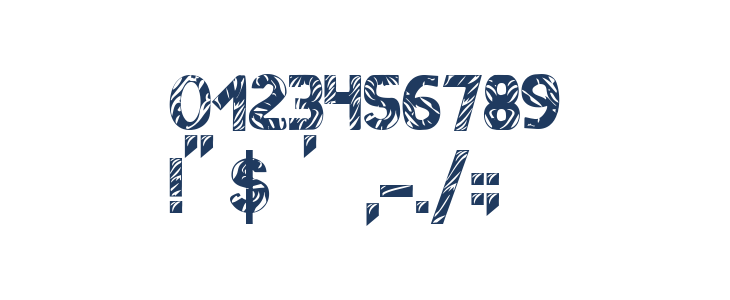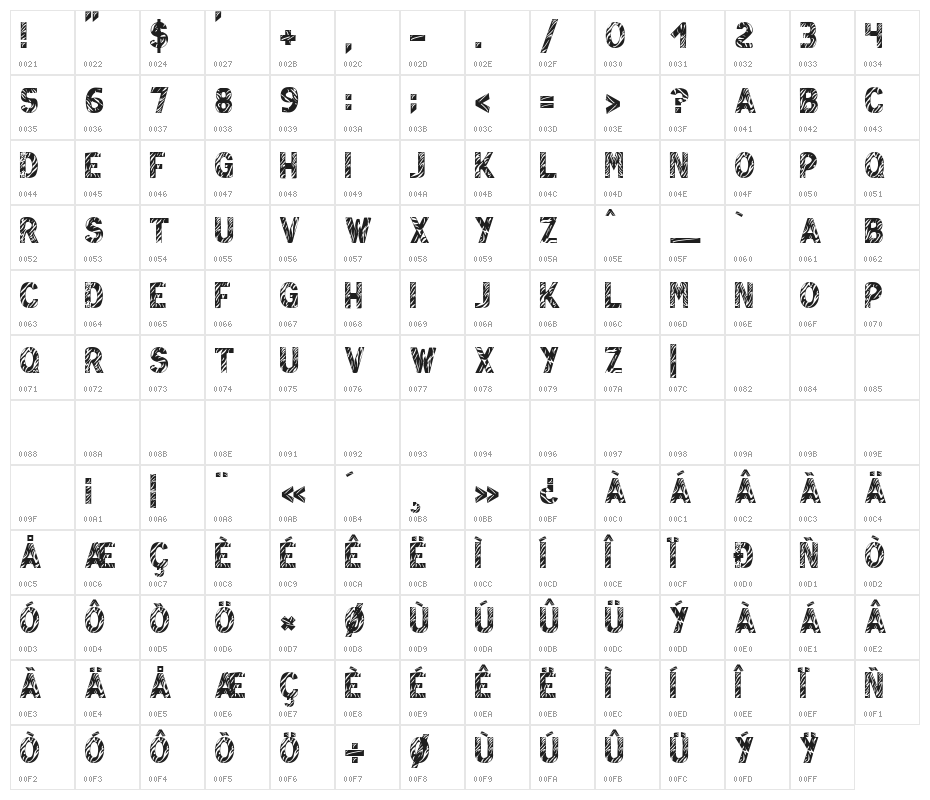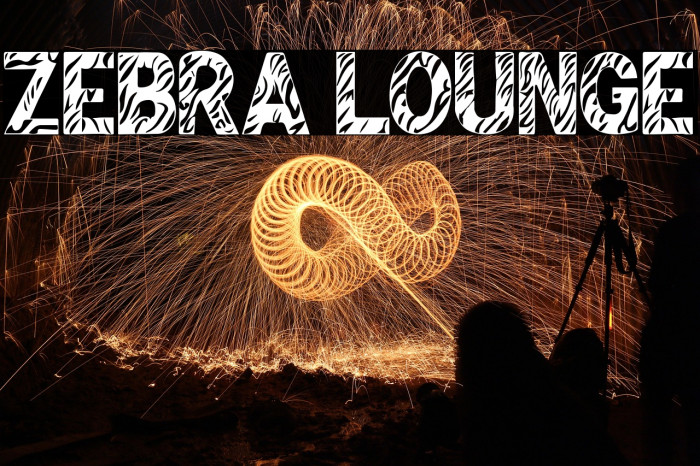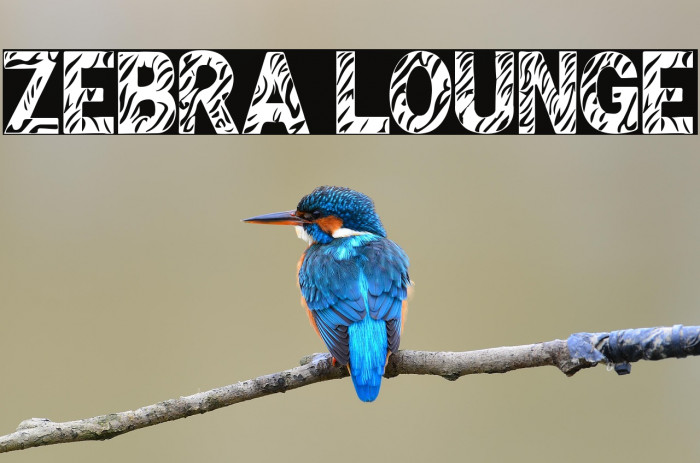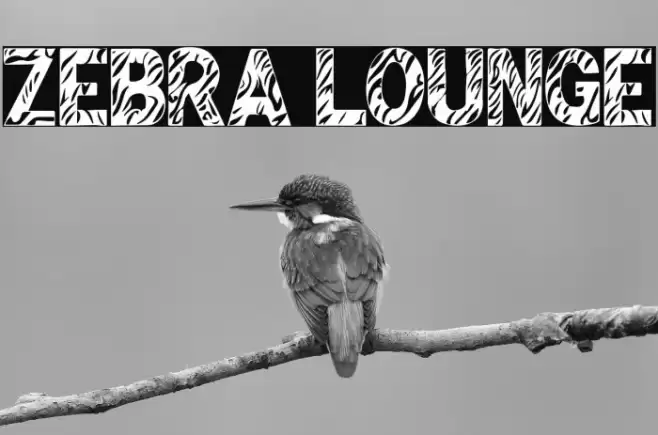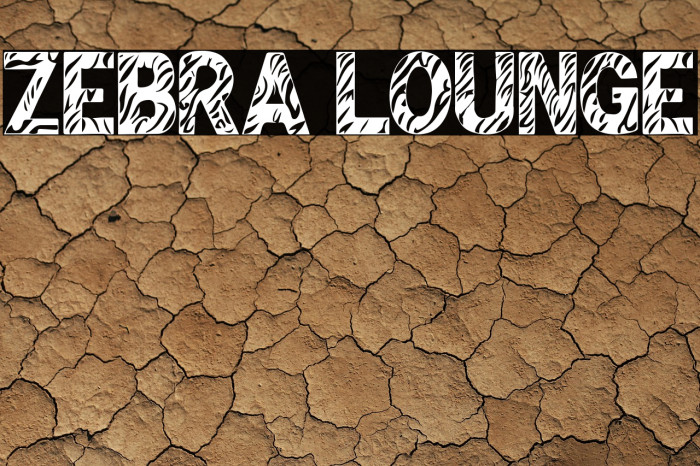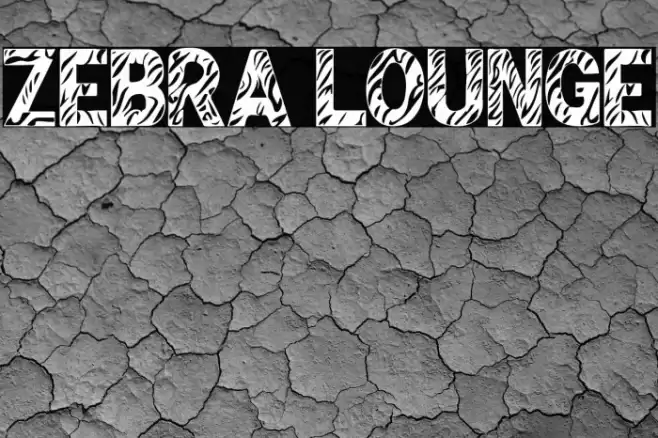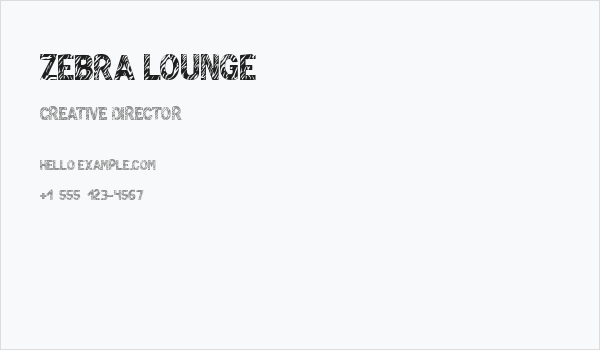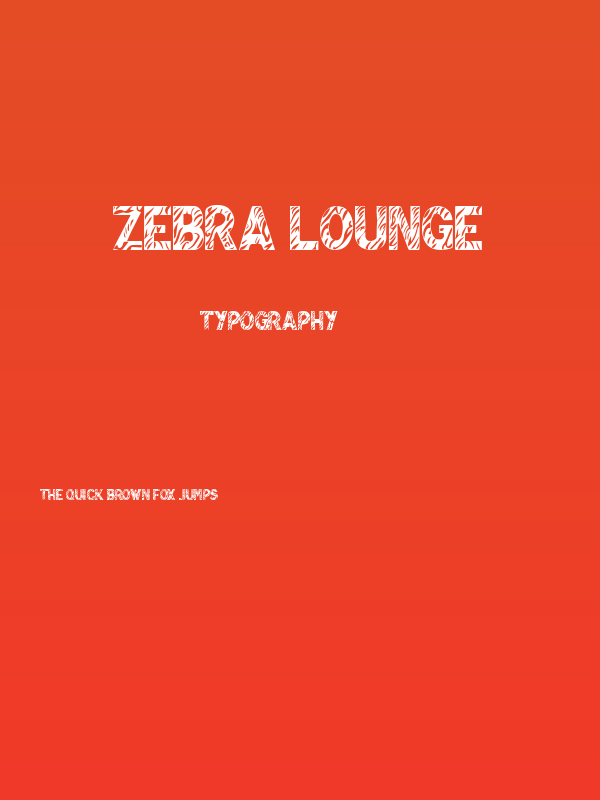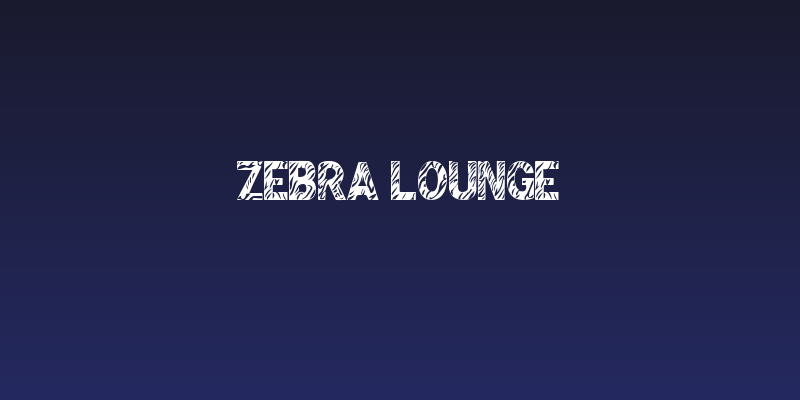
Zebra Lounge Font
Zebra Lounge Description
This font features a bold, decorative style with a unique zebra stripe pattern filling each character. The uppercase and lowercase letters are designed with a consistent width, creating a cohesive look. The numbers and special characters also carry the same zebra pattern, making them stand out. The font's playful and eye-catching design is perfect for projects that require a strong visual impact. Its distinct style makes it suitable for creative and artistic applications, where a touch of wildness and flair is desired.
| Proposed Projects | Ideal for posters, event invitations, branding for creative businesses, and any project needing a bold, artistic touch. |